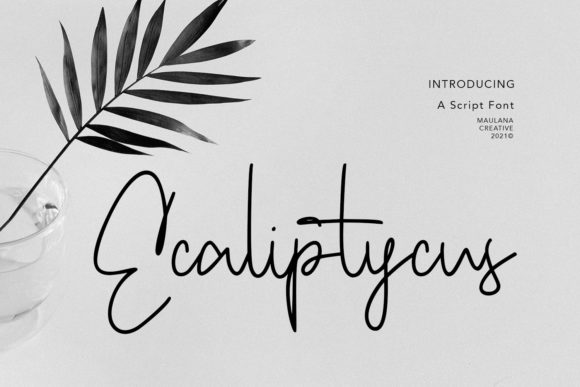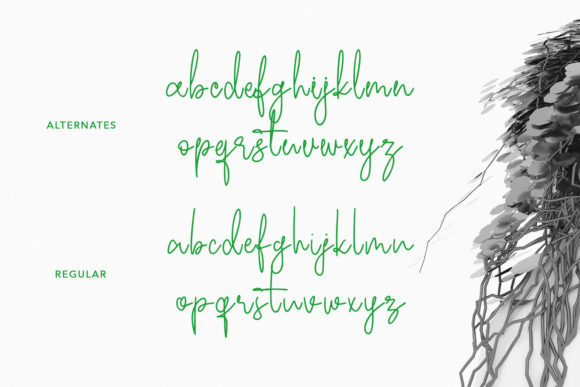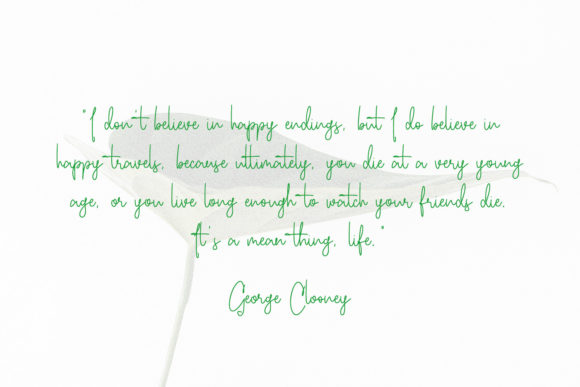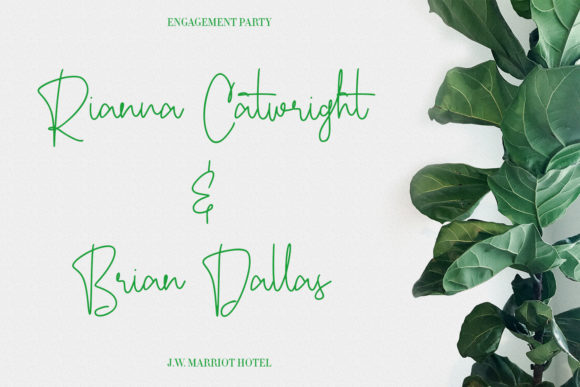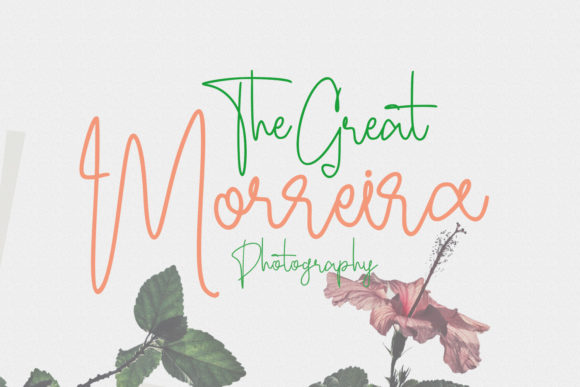
About Ecaliptycus Script Font
Ecaliptycus Script is a light weight and delicate handwritten font. It will add a luxury spark to any design project that you wish to create! It looks beautiful on a variety of designs requiring a personalized style, such as wedding invitations, thank you cards, weddings, greeting cards, logos and so on.Â